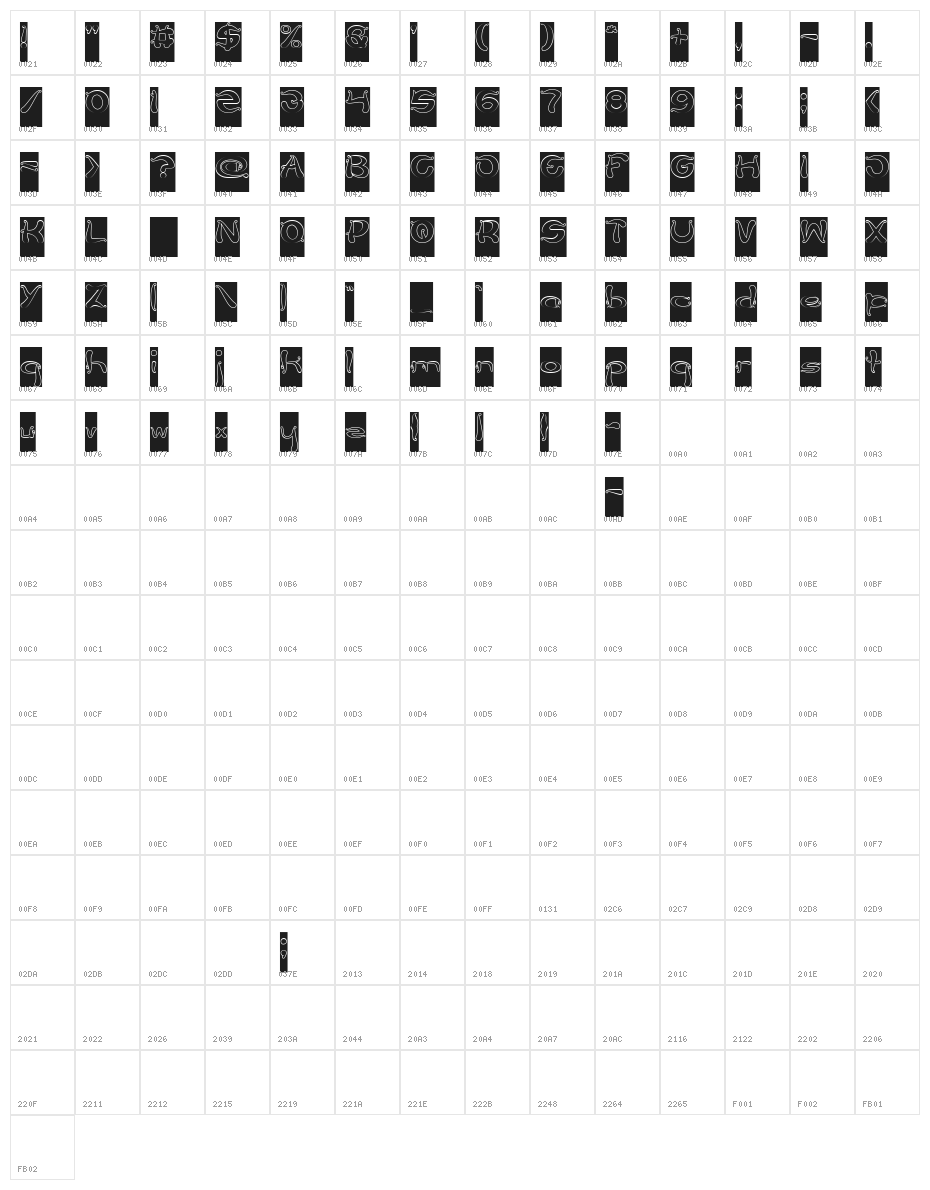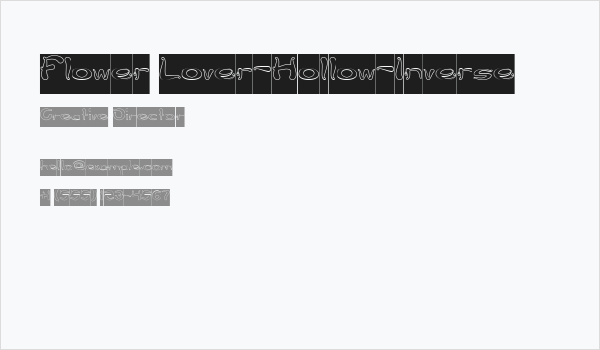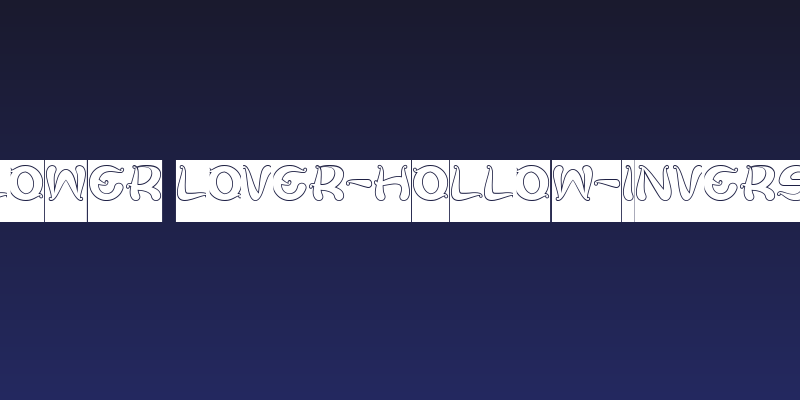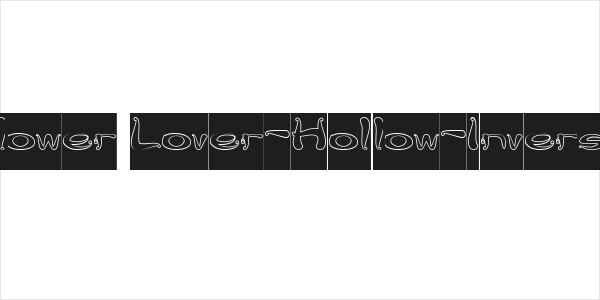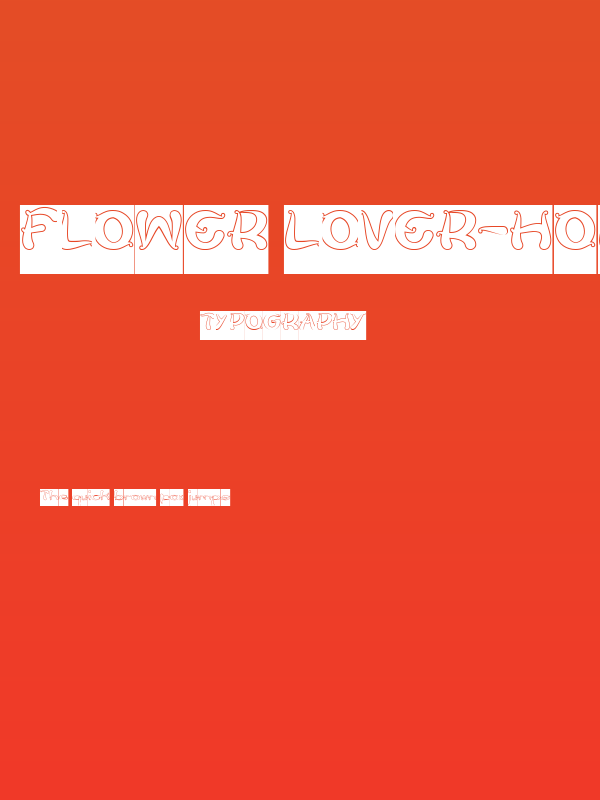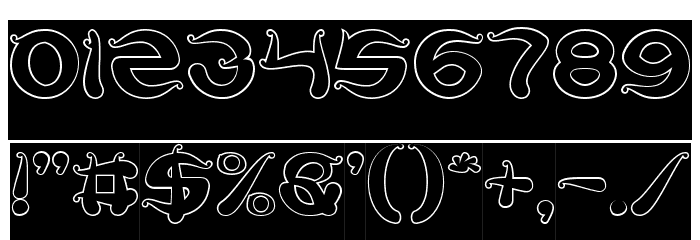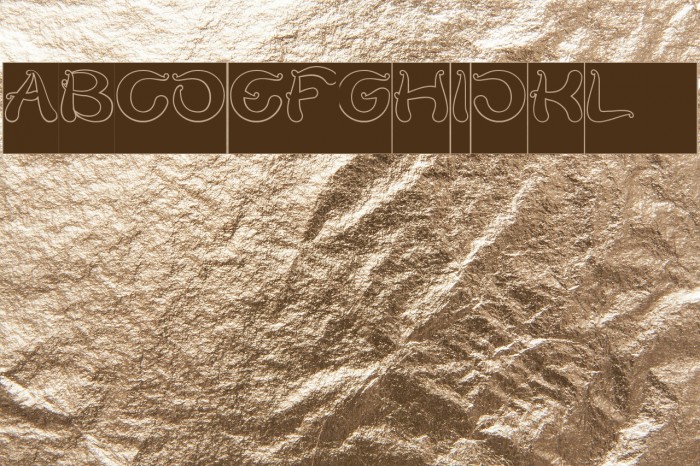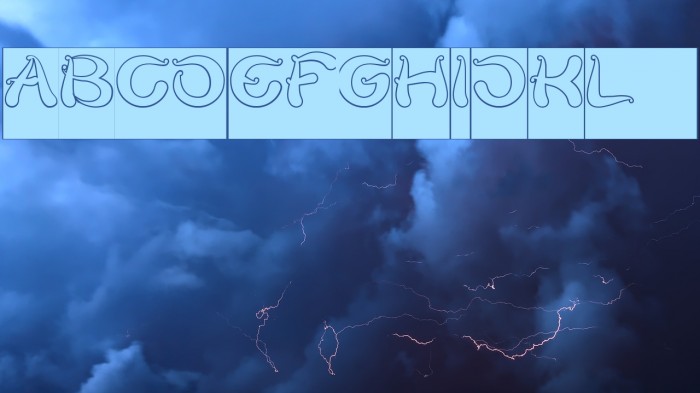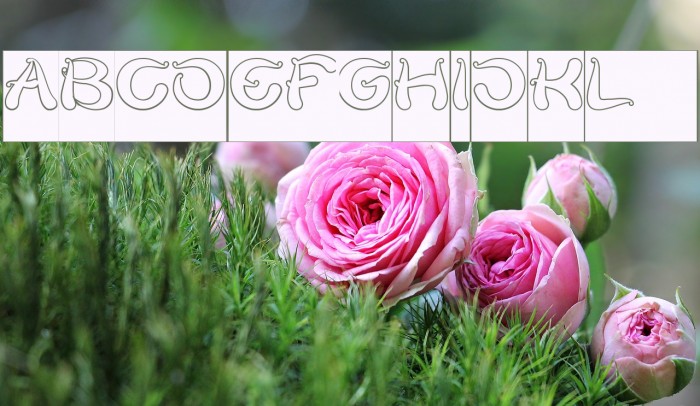
Flower Lover-Hollow-Inverse Font
Flower Lover-Hollow-Inverse Description
This font features a unique and playful design with hollow, inverse outlines that create a whimsical and artistic appearance. The characters are crafted with a floral motif, incorporating delicate curves and loops that resemble petals and vines. The uppercase and lowercase letters maintain a consistent style, with a slightly exaggerated flair that adds to the decorative nature of the font. Numbers and special characters are designed to match the overall theme, making this font suitable for creative and artistic projects. The hollow design allows for interesting color and background interactions, enhancing its visual appeal.
| Proposed Projects | Ideal for greeting cards, invitations, posters, and artistic branding projects. |